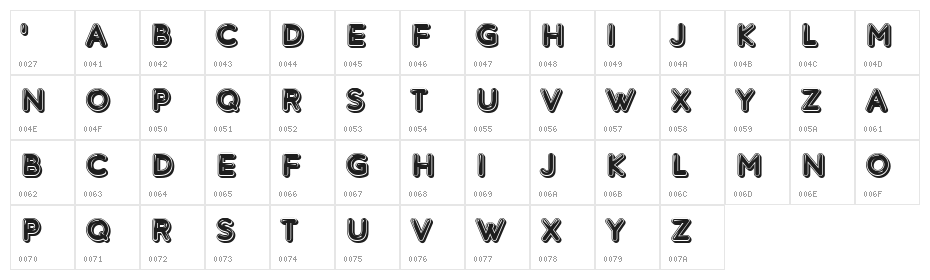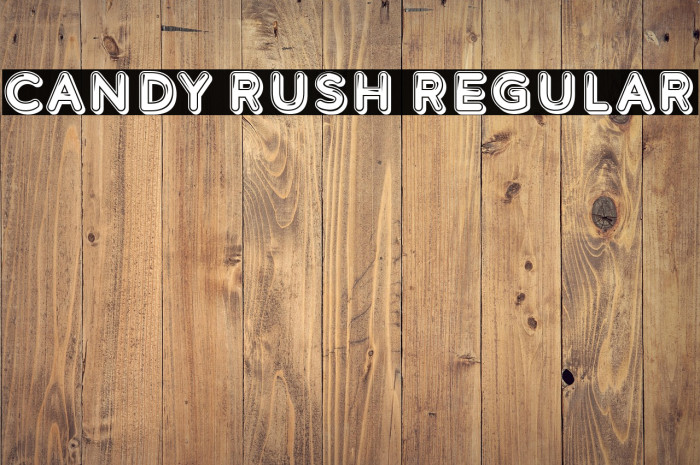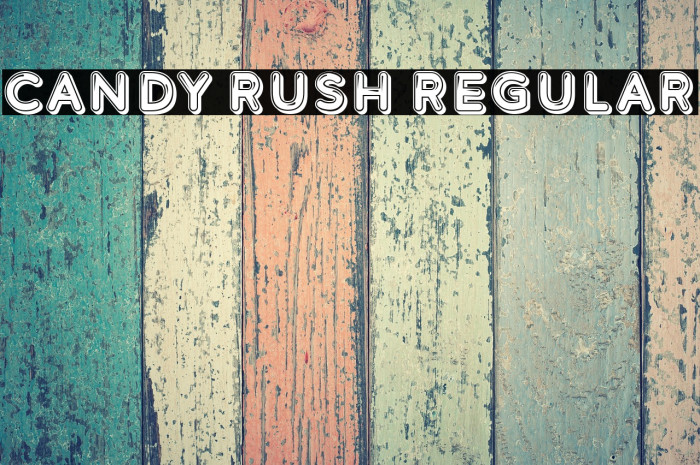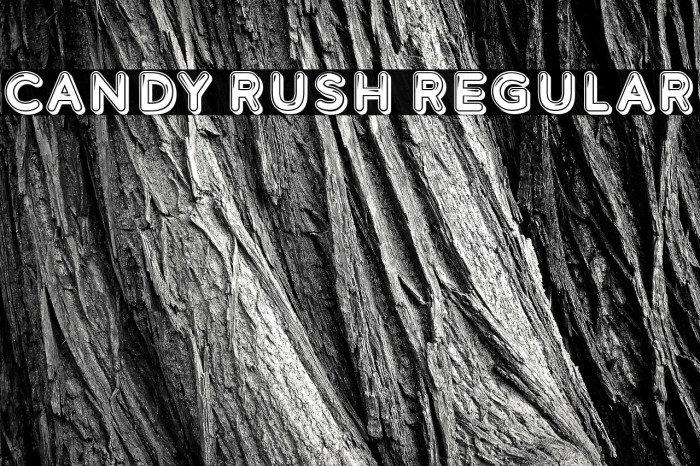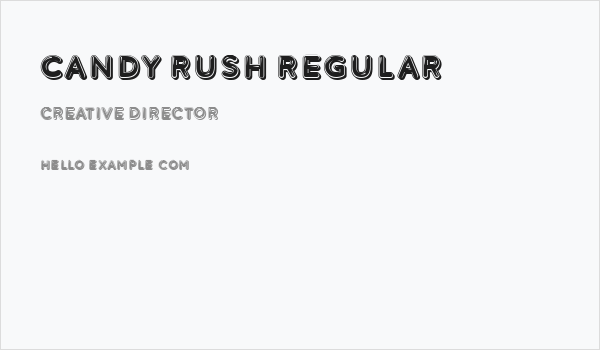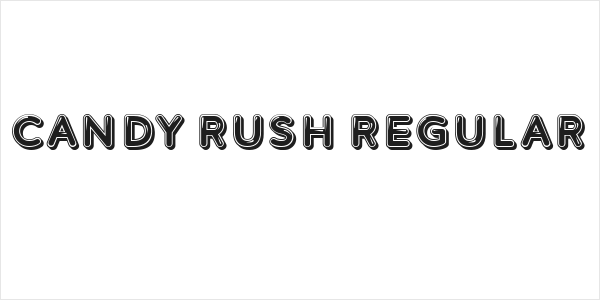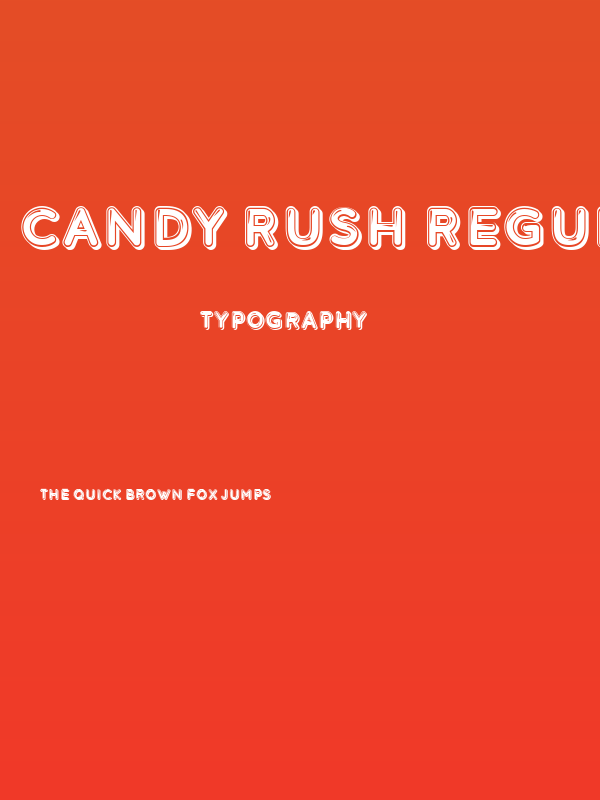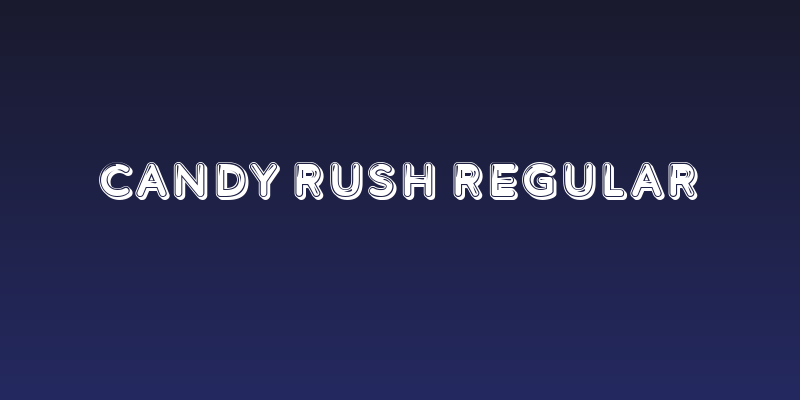
Candy Rush Regular Font
Candy Rush Regular Description
This font features a playful and bold design with a distinct outline that gives it a three-dimensional appearance. The characters are rounded and have a consistent thickness, creating a cohesive look. The font's style is reminiscent of candy or sweets, making it ideal for projects that require a fun and lively touch. The uppercase letters are prominent and well-defined, while the lowercase letters maintain the same playful characteristics. The numbers and special characters are designed to match the overall theme, ensuring uniformity across all text elements.
| Overall Style | Playful, Fun |
| Proposed Projects | Ideal for children's book covers, candy packaging, playful branding, and party invitations. |